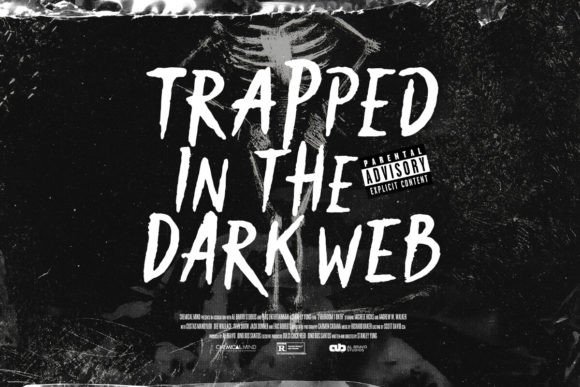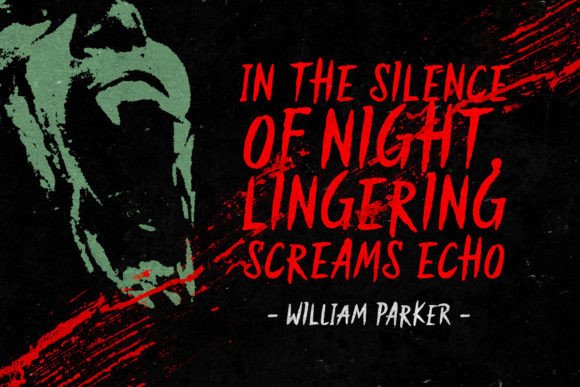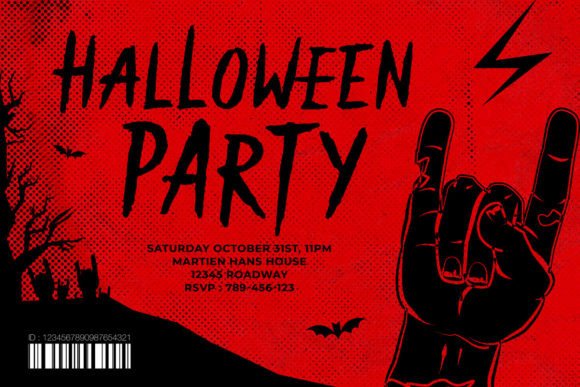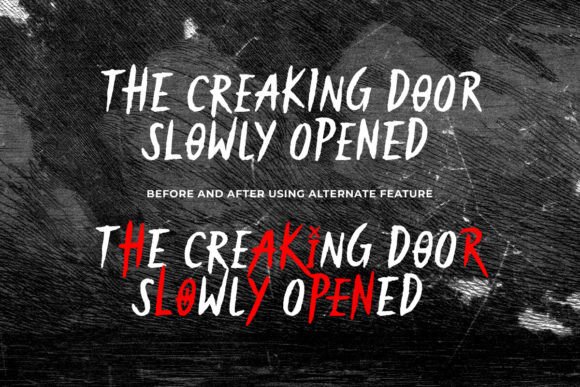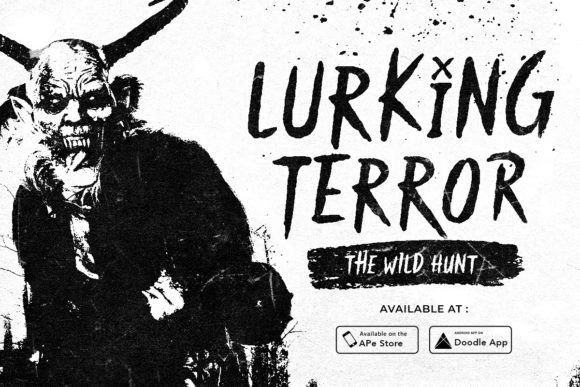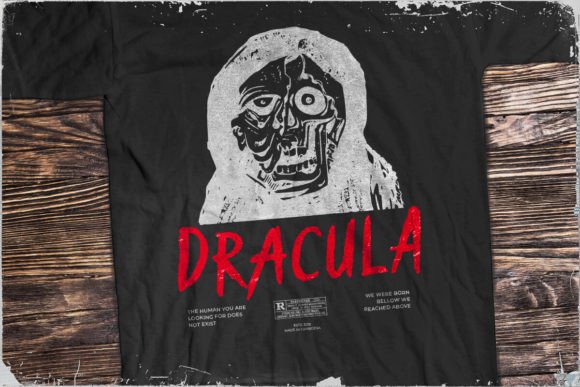
Introduction to Scream House Font
Scream House is a horror font based on handwritten font with alternates.
With the rough edge, this font is suitable for your next project that needs scary look Combine the uppercase and lowercase to get some stunning look, and use the alternates for the maximal use.